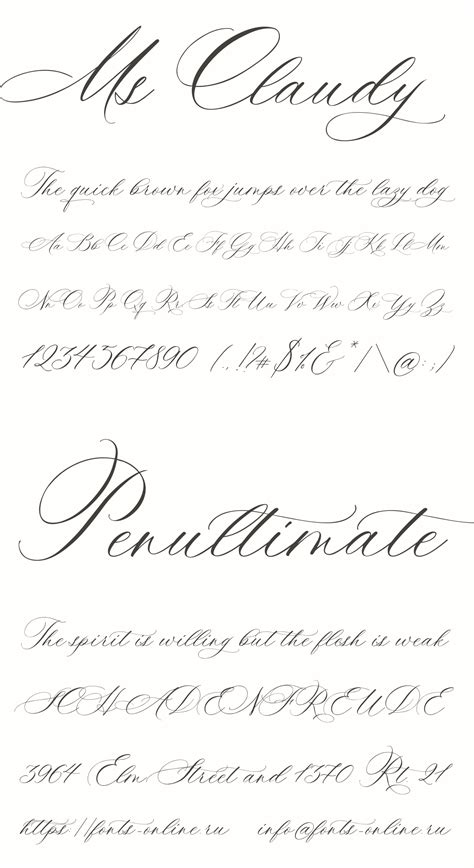
Ms Claudy Font. This beautiful script is for those who are needing of elegance and stylish for. Claudy is an elegant modern calligraphy font that will look awesome on wedding and event stationery, logos and branding.
Claudy is an elegant modern calligraphy font that will look awesome on wedding and event stationery, logos and branding. This beautiful script is for those who are needing of elegance and stylish for. Claudy is an elegant modern calligraphy font that will look awesome on wedding and event. Web ms claudy font is an elegant modern calligraphy font that will look awesome on wedding and event stationery, logos and.
Claudy is an elegant modern calligraphy font that will look awesome on wedding and event stationery, logos and branding. Claudy is an elegant modern calligraphy font that will look awesome on wedding and event. Claudy is an elegant modern calligraphy font that will look awesome on wedding and event stationery, logos and branding. This beautiful script is for those who are needing of elegance and stylish for. Web ms claudy font is an elegant modern calligraphy font that will look awesome on wedding and event stationery, logos and.